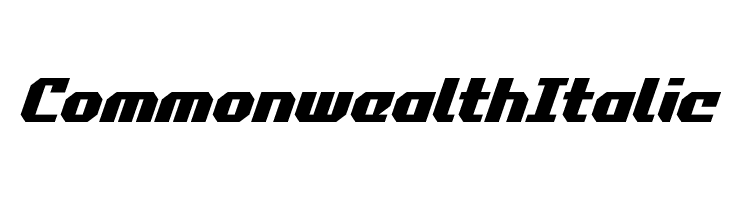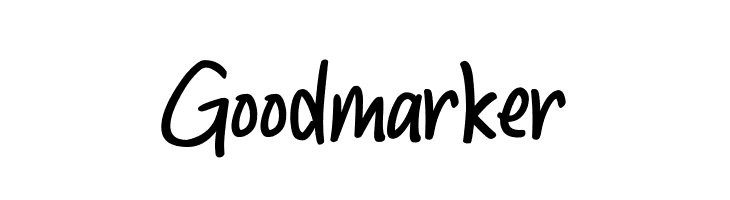
An elegant italic serif font with smooth strokes and moderate contrast.
A playful, elegant handwritten font with modern loops and smooth curves.
A modern, rounded font with a light weight and geometric style.
A bold, flowing script font with elegant, dynamic curves and high contrast.
A whimsical, handwritten script with tall, narrow, and flowing letterforms.
Bold, slanted font with wide, blocky characters for dynamic impact.
A modern, italic font with a sleek, condensed design and medium contrast.
A bold, dynamic script font with elegant curves and high contrast.
A modern, italic font with medium contrast and geometric structure.
A modern, extra condensed font with thin strokes and a geometric style.